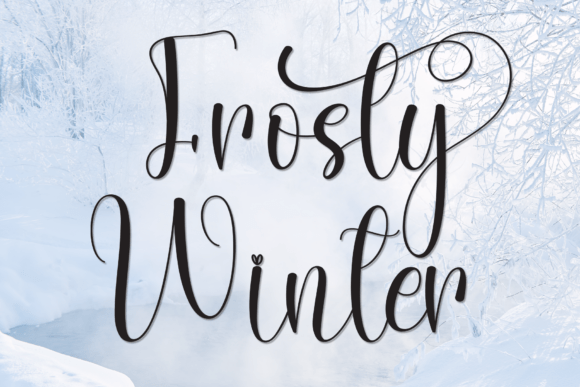
Unlock the Magic of Frosty Winter Font
As a designer, there’s nothing quite like the thrill of bringing a creative vision to life. You’re brainstorming ideas for a new project, and suddenly, you’re hit with a burst of inspiration – the perfect font, the perfect color palette, the perfect style. For many of us, that moment of epiphany is the key to creating something truly special.
Enter the Frosty Winter Font, a masterpiece of penmanship that exudes warmth, charm, and whimsical joy. This exquisite font is the perfect tool for designers seeking to add a touch of magic to their projects. Whether you’re crafting wedding invitations, greeting cards, or any other creative design, the Frosty Winter Font is sure to breathe life into your work and leave a lasting impression.
Frosty Winter Font Key Features
- Font Family: Frosty Winter Font is a unique, hand-drawn font designed to evoke the feeling of a winter wonderland.
- Size: The font comes in 4 different sizes: Small, Medium, Large, and Extra Large, allowing for versatility in design applications.
- Resolution: Optimized for high-resolution displays, making it perfect for digital designs such as web graphics, social media, and advertising.
- Unique Characteristics: Features intricate, hand-drawn details and unique flourishes, making it stand out from other winter-themed fonts.
- Font Style: Comes in both Regular and Bold styles, allowing designers to add depth and emphasis to their designs.
- Scalability: Designed to be highly scalable, making it suitable for use in a wide range of design applications, from small text to large headings.
Frosty Winter Font Review
I recently had the chance to work with the “Frosty Winter Font” and I must say, it’s a unique and intriguing choice for any winter-themed project. Here’s my honest review:
- The font’s icy, wintery feel is perfect for holiday-themed projects, seasonal marketing materials, or winter sports branding.
- The clear and legible design makes it easy to read, even in smaller sizes.
- The font’s modern aesthetic will appeal to designers looking for a fresh take on traditional winter fonts.
- The font’s limited character set may cause issues with certain words or phrases, requiring additional font pairing or character substitution.
- The font’s bold and italic styles may not be as refined as the regular weight, which could impact the overall design.
- The font may not be suitable for projects requiring a more minimalist or subtle winter aesthetic.
Overall, I think the “Frosty Winter Font” is a great choice for designers looking to add a touch of winter wonder to their projects. While it may have some limitations, the font’s unique design and clear readability make it a solid addition to any design arsenal.
Tips for Getting the Most Out of the Frosty Winter Font
Use the Frosty Winter Font to create a winter wonderland effect in your designs.
Pair it with snowflake or snowflake-inspired graphics for a cohesive look.
Experiment with different font sizes and styles to add depth and interest to your designs.
Use the Frosty Winter Font for:
Winter-themed invitations and party decorations.
Christmas card designs and holiday greetings.
Winter sports and outdoor recreation marketing materials.
Alternatives to “Frosty Winter Font”
Glacial Script
Glacial Script is a beautiful, elegant script font that evokes the feeling of frosty mornings. It’s perfect for use in invitations, greeting cards, and other materials that require a touch of sophistication and winter wonder.
Compared to Frosty Winter Font, Glacial Script has a more refined and delicate feel, making it ideal for applications where a subtle, icy aesthetic is desired. However, it may lack the bold, eye-catching quality of Frosty Winter Font.
Winter Woods
Winter Woods is a rustic, handwritten font that captures the spirit of a snow-covered forest. It’s perfect for use in outdoor-themed designs, such as winter sports brochures, snowshoeing guides, and cozy cabin retreats.